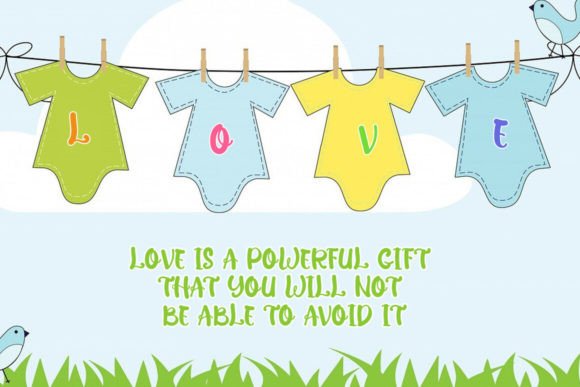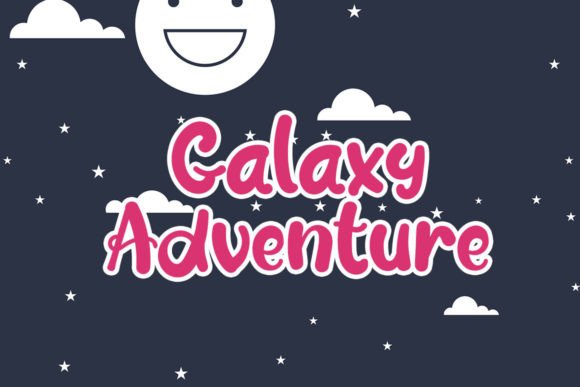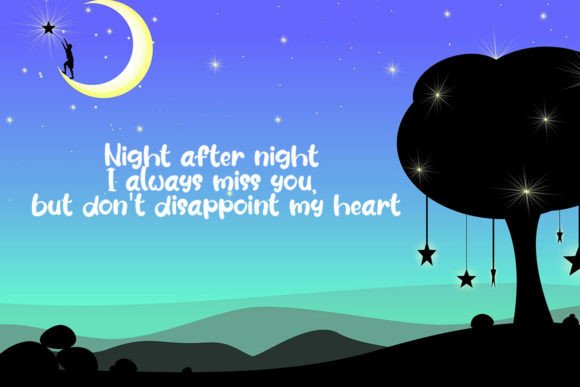
The Perfect Font for Your Next Design Project
Have you ever stared at a blank page, struggling to find the perfect font to bring your creative vision to life? You know the feeling – the cursor blinks, and the blank space stares back, taunting you to make the next move. But what if you had the right tool to break through that creative block and turn your idea into a stunning reality?
Enter the Babyzola Font, a game-changing typeface designed to make your design process easier and more efficient. With its extensive range of weights and styles, you can create a wide variety of design elements, from eye-catching headlines to professional body text. The Babyzola Font is an invaluable asset for designers, offering the flexibility and versatility needed to tackle any project that comes your way.
Babyzola Font Key Features
- Font Family: Babyzola Font is a unique, hand-drawn font designed for children’s products and educational materials.
- Font Size: Babyzola Font comes in multiple sizes, ranging from 8pt to 72pt, making it suitable for various applications, including signage, labels, and digital displays.
- Resolution: Optimized for high-resolution displays, Babyzola Font maintains its clarity and readability at resolutions up to 300 DPI.
- Unique Characteristics: The font features a playful, whimsical design with rounded edges, making it perfect for creating a friendly and approachable atmosphere in children’s spaces.
Designer Review: Babyzola Font
Overall, I’d say that Babyzola Font is a cute and playful addition to any digital project. ✨ I love the whimsical feel it brings, making it perfect for children’s educational content, nursery decor, or any project that requires a lighthearted tone.
- Works well for:
- Children’s educational content
- Nursery decor and branding
- Playful websites and social media
- Features:
- High-quality vector graphics
- Multiple font styles and weights
However, there are some limitations to consider: ⚠️ Babyzola Font might not be the best choice for projects that require a professional or formal tone, as it can come across as too childish. Additionally, the font may not be suitable for large blocks of text, as it can be difficult to read in certain sizes.
Overall, I think Babyzola Font is a great option for the right project, but it’s essential to weigh the pros and cons before making a decision. With its playful charm and high-quality design, it’s sure to bring a smile to users’ faces.
Tips for Getting the Most Out of Babyzola Font
Here are some tips to help you get the most out of Babyzola Font:
- Experiment with different font sizes and styles to achieve a unique look.
- Pair Babyzola Font with other fonts to create a visually appealing combination.
- Use Babyzola Font for titles, headings, and emphasis to draw attention to important information.
Babyzola Font is ideal for:
- Designing creative and playful projects.
- Adding a touch of whimsy to your branding and marketing materials.
- Design a custom wall art with a quote or the baby’s name using the Babyzola Font.
- Print the design on a large canvas or paper and frame it.
- Use a combination of bold colors and soft pastels to create a soothing atmosphere.
- Pair the Babyzola Font with hand-painted flowers or leaves for a whimsical touch.
- Use a mix of fonts and textures to create a visually appealing contrast.
- Keep the background simple and uncluttered to let the Babyzola Font be the focal point.
- Design a custom invitation card with a cute illustration or a photo of the baby using the Babyzola Font.
- Use the font to create a title or a header for the invitation card.
What is the recommended font size for optimal readability with the Babyzola Font?
The recommended font size for optimal readability with the Babyzola Font is between 12-14 points. However, this may vary depending on the specific application, screen resolution, and personal preference. Experiment with different font sizes to find the most comfortable and readable setting for your needs.